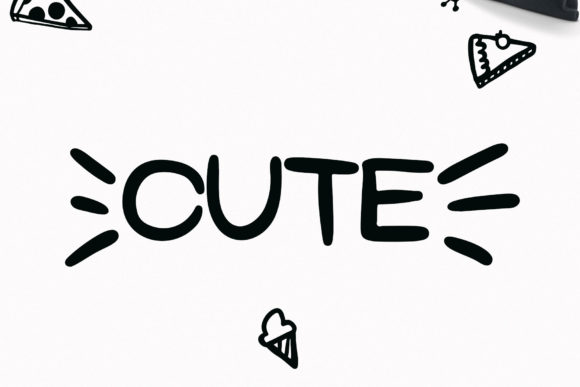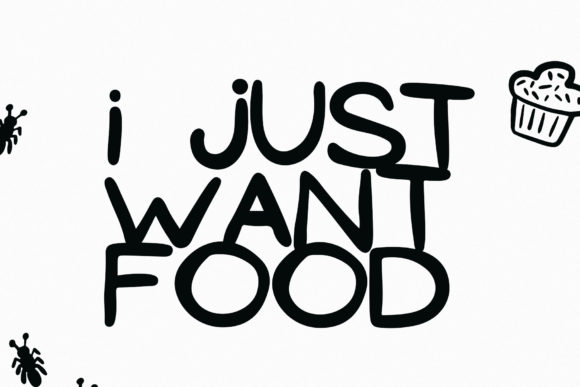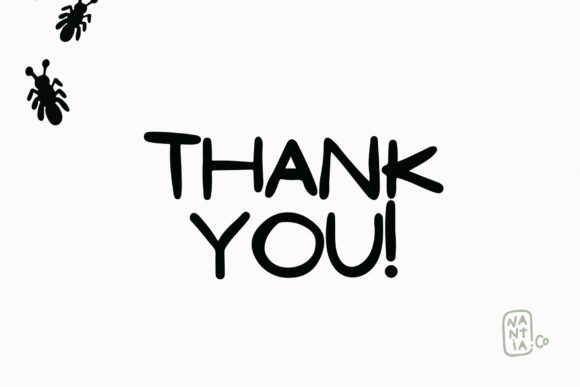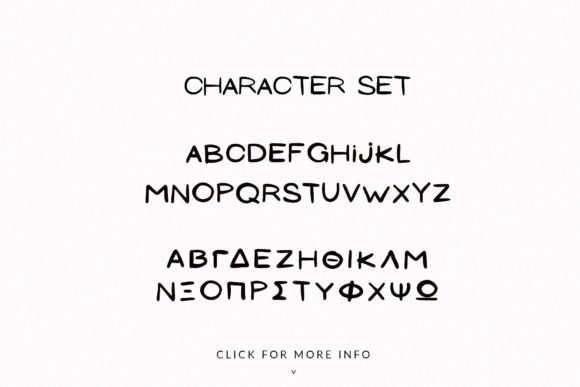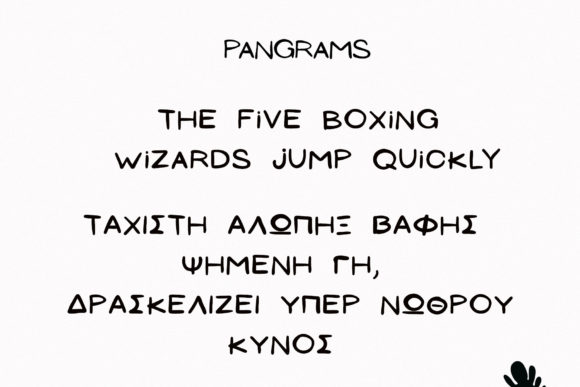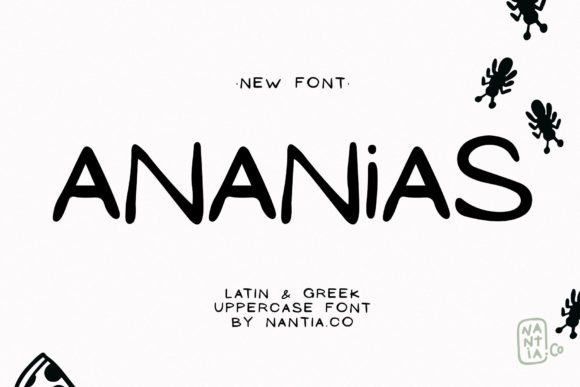
Introducing Ananias Font: Unleash Your Creativity with this Handcrafted Gem
Are you tired of using the same old fonts in your designs? Do you want to add a touch of personality and whimsy to your projects? Look no further than Ananias Font, a handcrafted typeface that is inspired by doodles and bursting with character. In this article, we’ll dive into the world of Ananias Font and explore how it can elevate your designs to the next level.
The Story Behind Ananias Font
Ananias Font is the brainchild of a talented designer who sought to create a font that would capture the carefree spirit of doodles. The result is a handcrafted typeface that is both playful and sophisticated, making it perfect for a wide range of design applications. With its unique blend of curves and lines, Ananias Font is sure to add a dash of personality to any project.
What Makes Ananias Font So Special?
So, what sets Ananias Font apart from other fonts on the market? Here are just a few of its standout features:
- Handcrafted with love: Ananias Font is meticulously crafted by hand, giving it a unique and organic feel that is hard to replicate with digital fonts.
- Inspired by doodles: The font’s playful and whimsical design is inspired by the carefree spirit of doodles, making it perfect for designs that require a touch of personality.
- Heaps of personality: Ananias Font is bursting with character, making it ideal for designers who want to add a dash of whimsy to their projects.
How to Use Ananias Font in Your Designs
Ananias Font is incredibly versatile and can be used in a wide range of design applications, from:
- Branding and logos: Add a touch of personality to your brand’s logo with Ananias Font.
- Social media graphics: Use Ananias Font to create eye-catching social media graphics that stand out from the crowd.
- Invitations and cards: Add a touch of whimsy to your invitations and cards with Ananias Font.
- Web design: Use Ananias Font to add a dash of personality to your website’s design.
Tips for Getting the Most Out of Ananias Font
Here are a few tips for getting the most out of Ananias Font:
- Experiment with different sizes and colors: Ananias Font looks great in a variety of sizes and colors, so don’t be afraid to experiment and find the perfect combination for your design.
- Pair it with other fonts: Ananias Font pairs well with a range of other fonts, so try combining it with other typefaces to create a unique and interesting design.
- Use it to add a touch of whimsy: Ananias Font is perfect for adding a touch of whimsy to your designs, so don’t be afraid to get creative and have fun with it.
| Font Name | Ananias Font |
| Author | nantia |
In conclusion, Ananias Font is a handcrafted gem that is sure to add a dash of personality to any design. With its unique blend of curves and lines, inspired by doodles, this font is perfect for designers who want to create eye-catching and engaging designs. Whether you’re working on a branding project, social media graphics, or web design, Ananias Font is a great choice. So why not give it a try and see how it can elevate your designs to the next level?